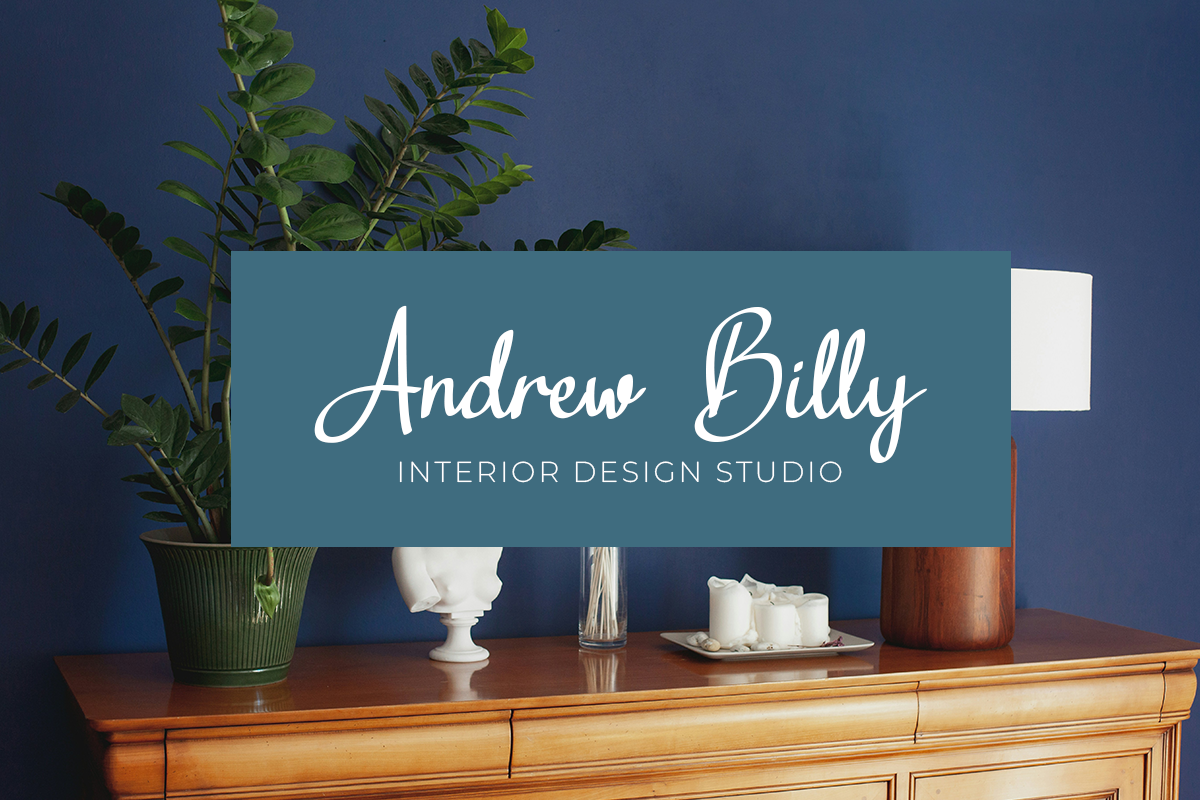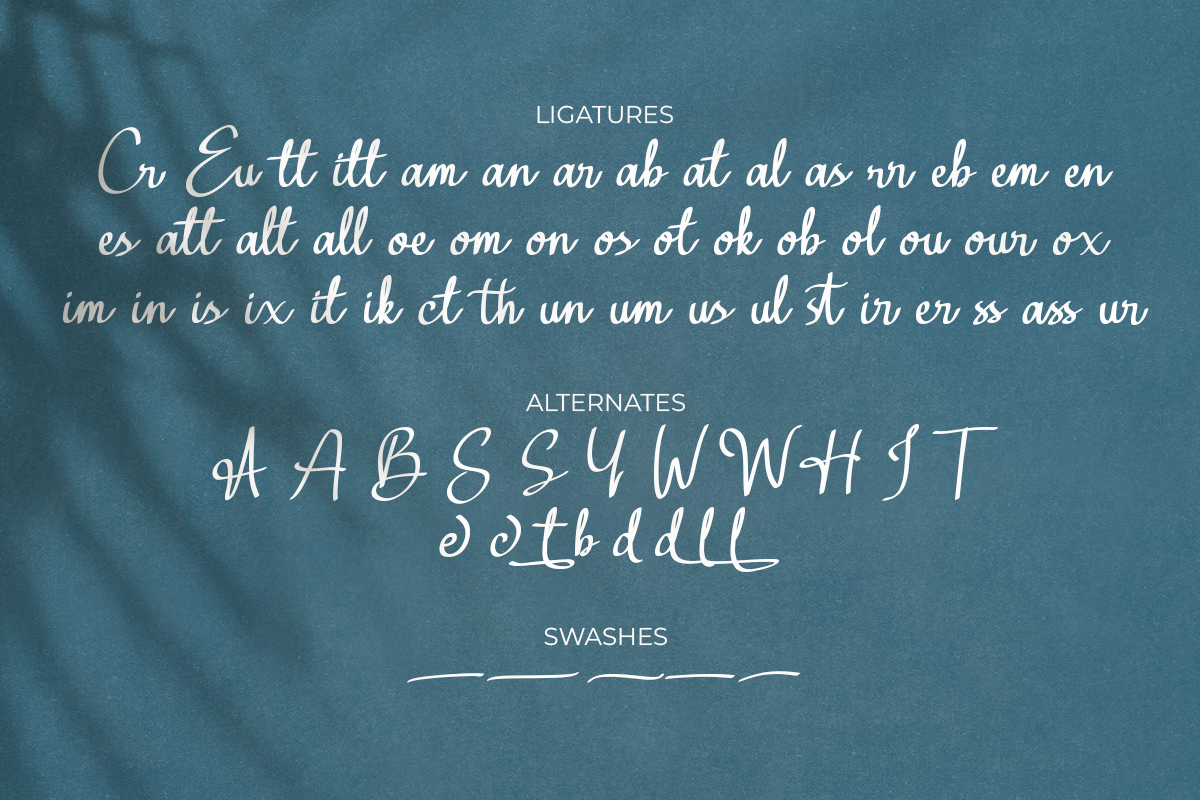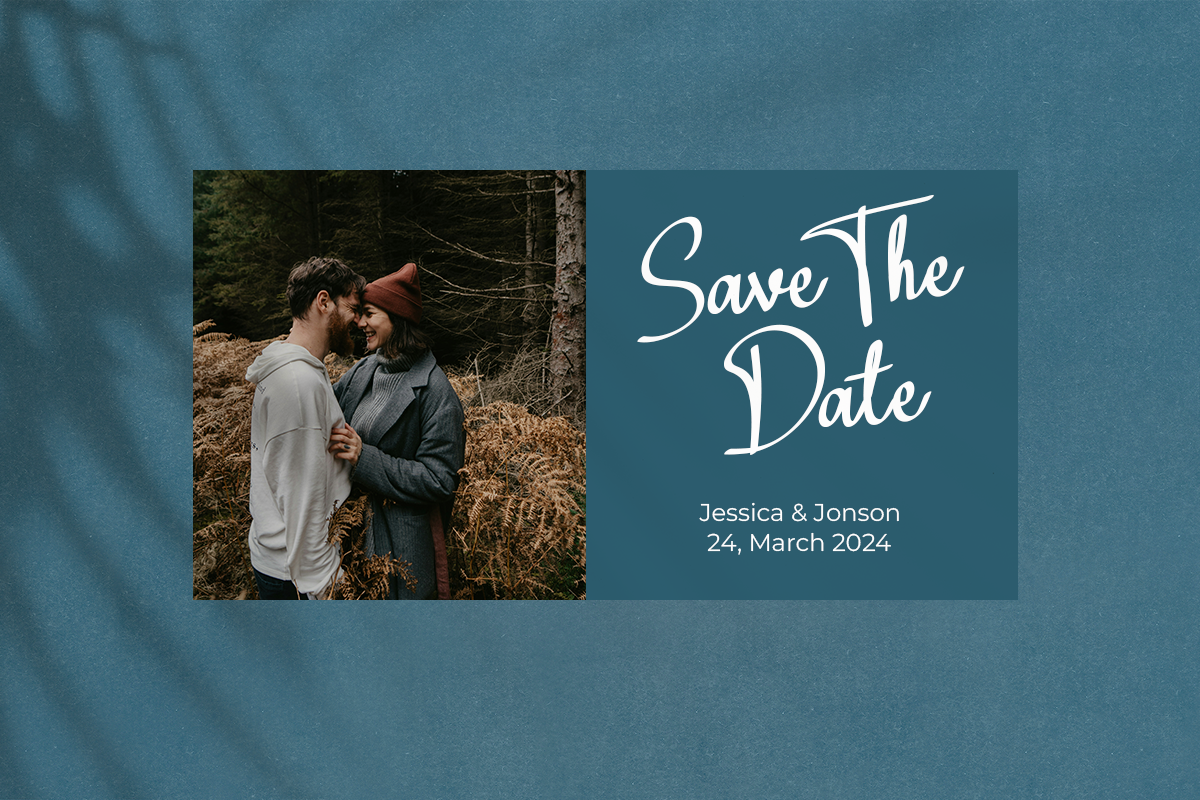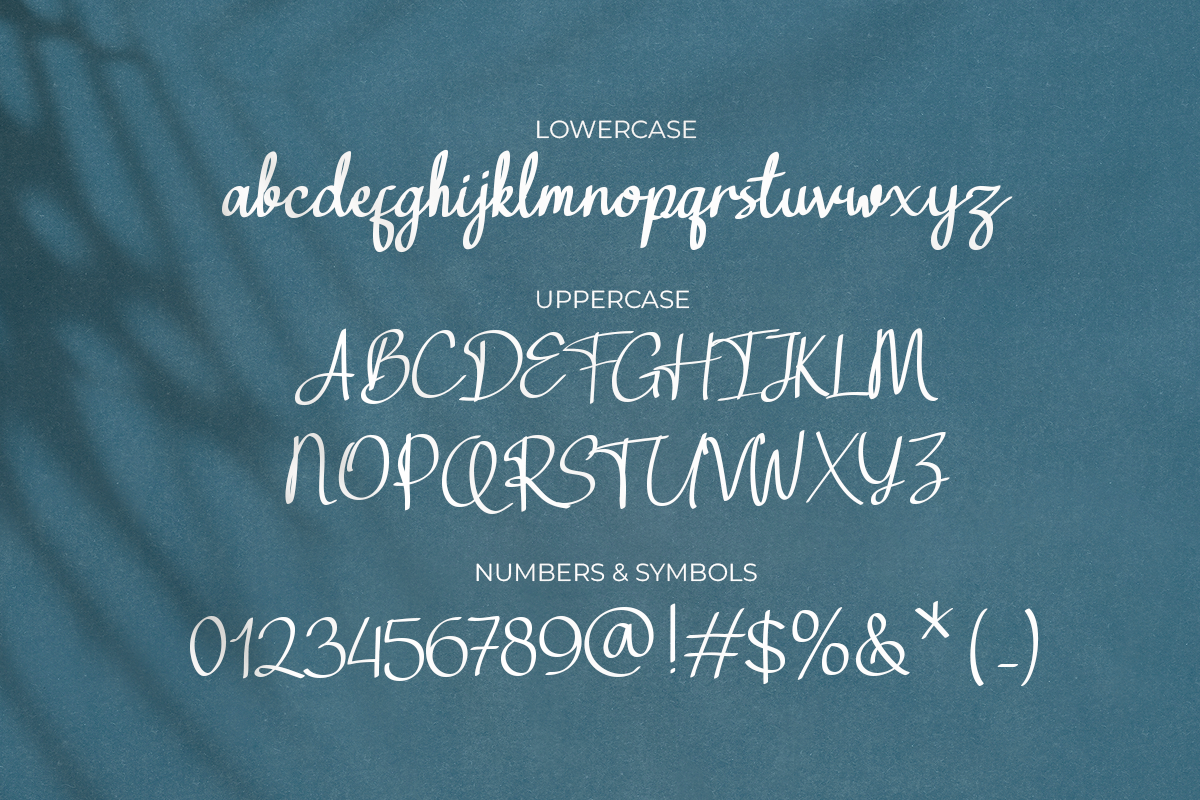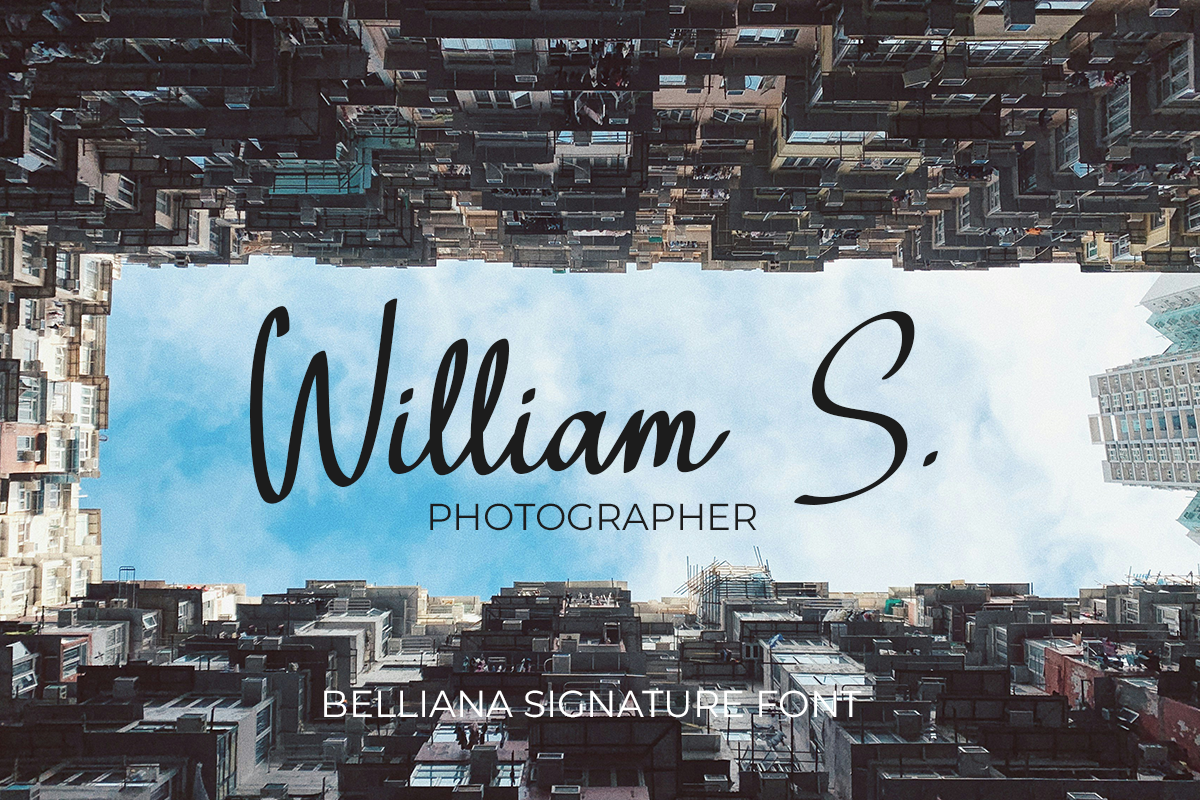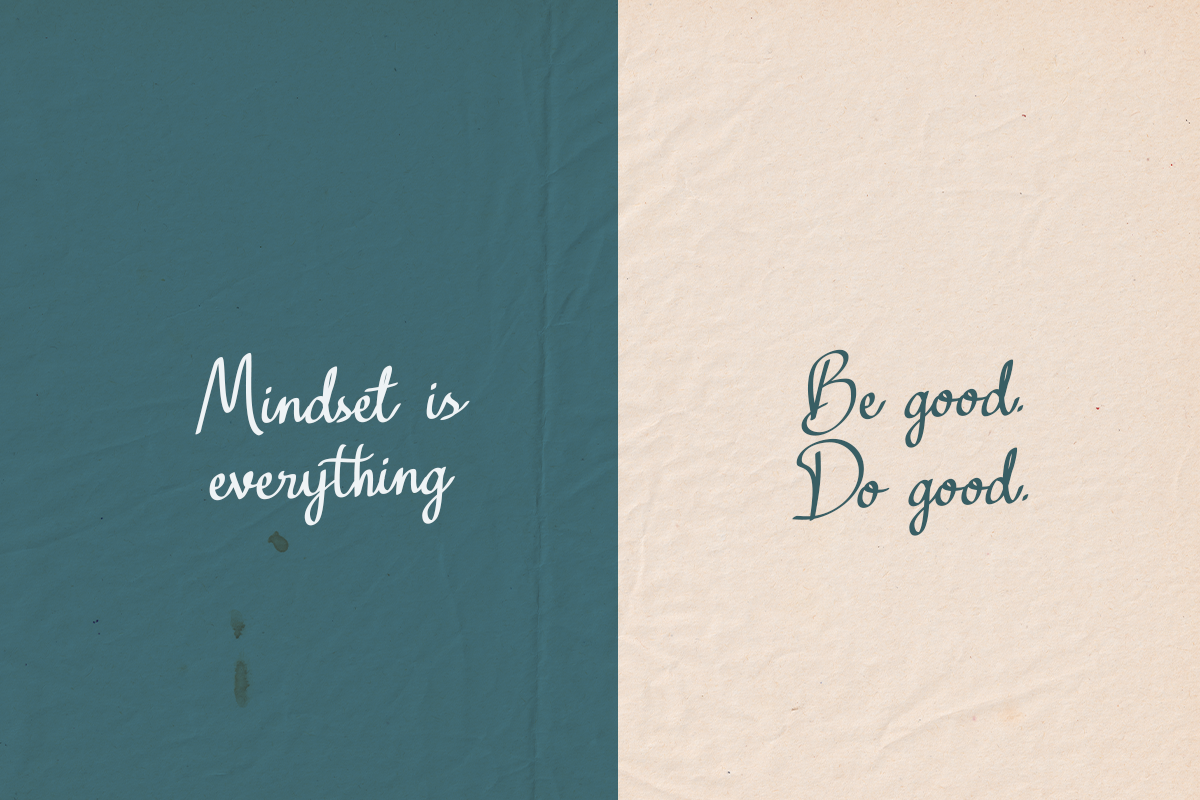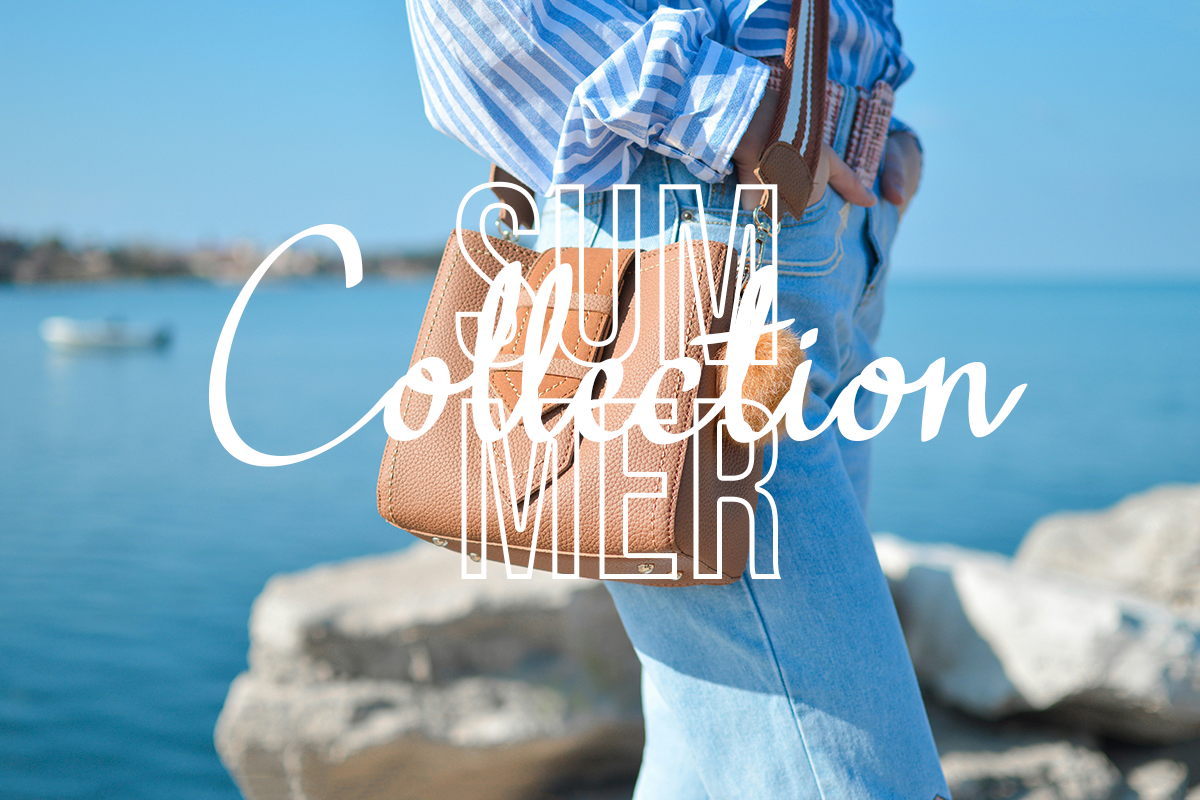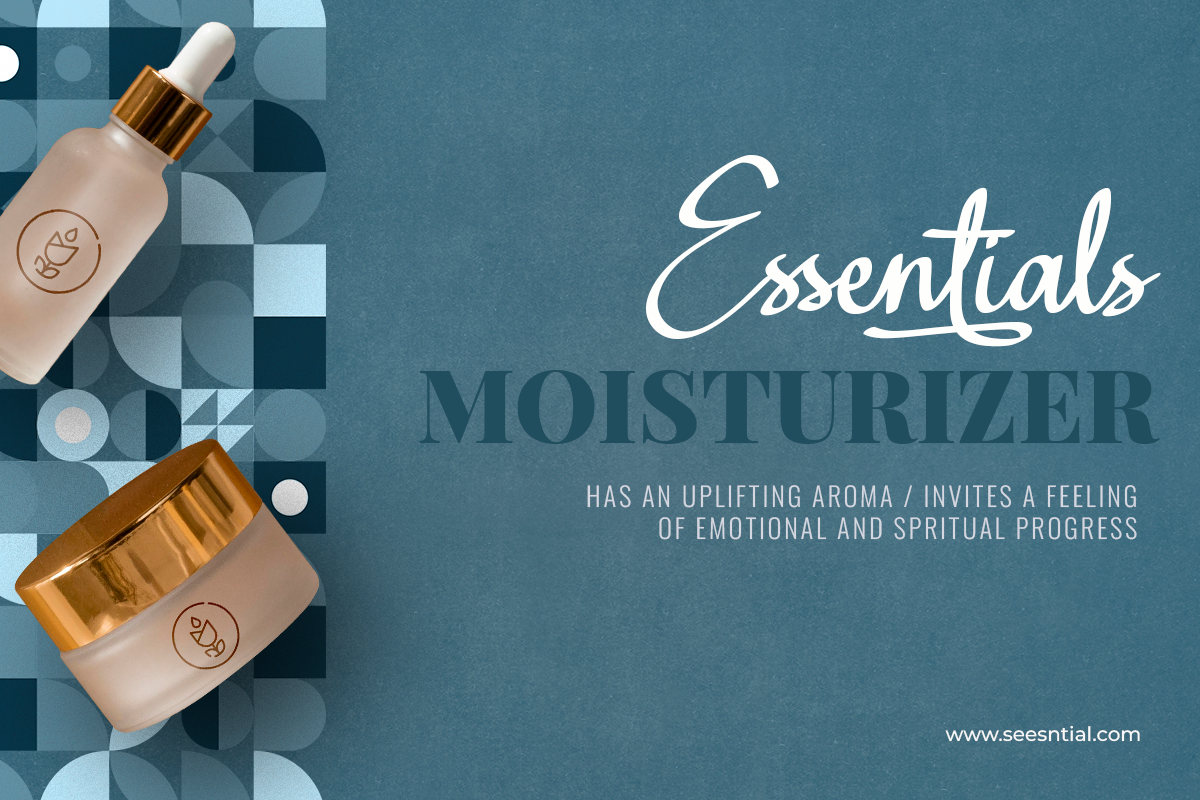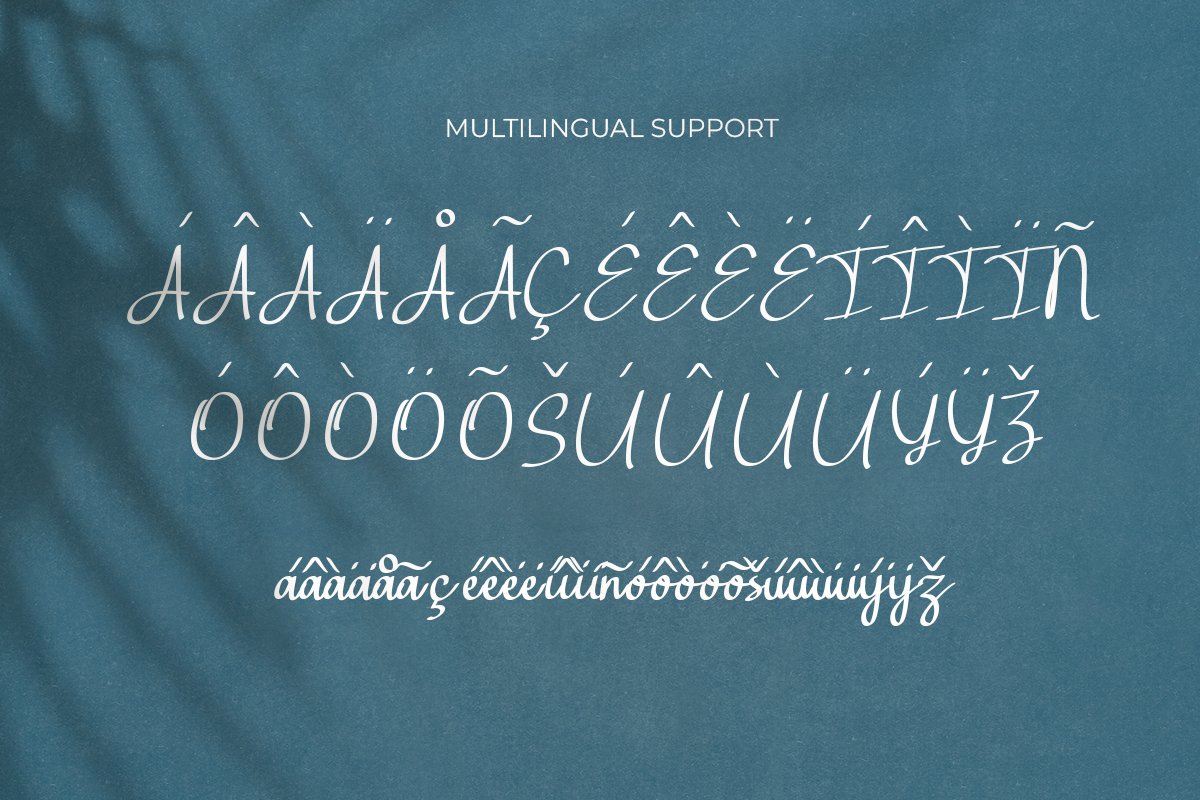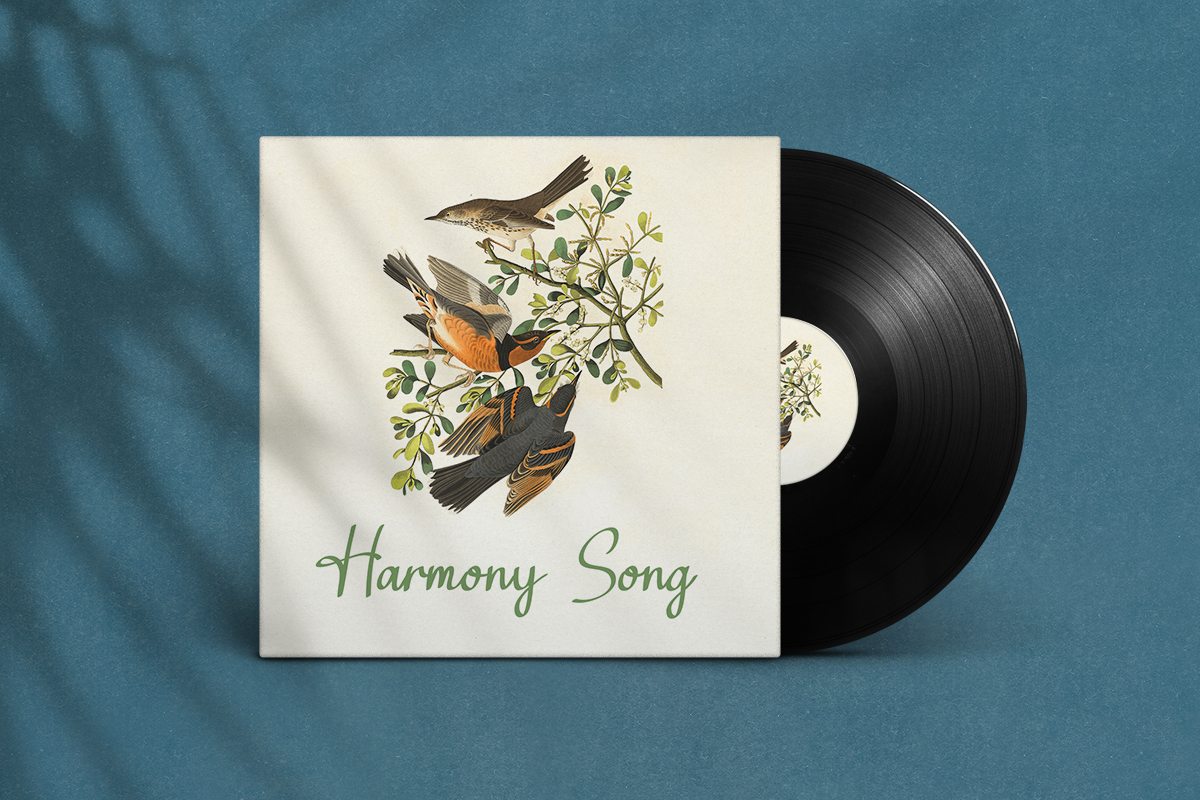
Belliana Signature Font
Bellania is a handwritten script font based on the expression of real handwriting. Amiable and organic, it is perfect if you want to convey individuality and style. It’s written with a calligraphy pen with casual dry strokes and a signature style. This script contains upper and lowercase characters with pleasant low x-height and high ascenders and descenders—and also numerals and a large range of punctuation and symbols. More than 100 ligatures are also available for upper and lowercase characters—double-letters which flow more naturally. Contextual alternates are part of the Open Type feature set.
Bellania is perfect for branding projects, logos, product packaging, posters, invitations, greeting cards, titles, blogs, and everything that includes personal charm.